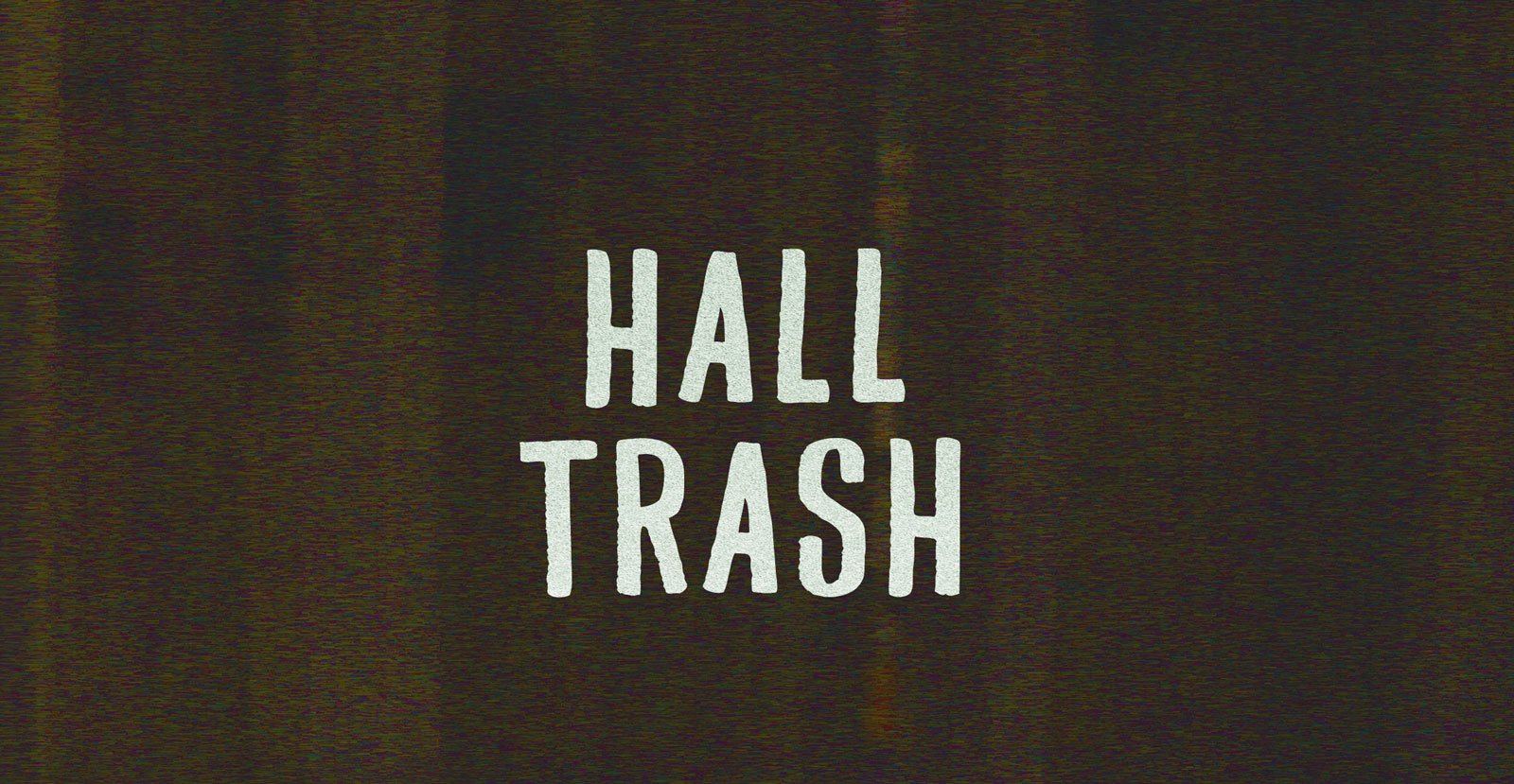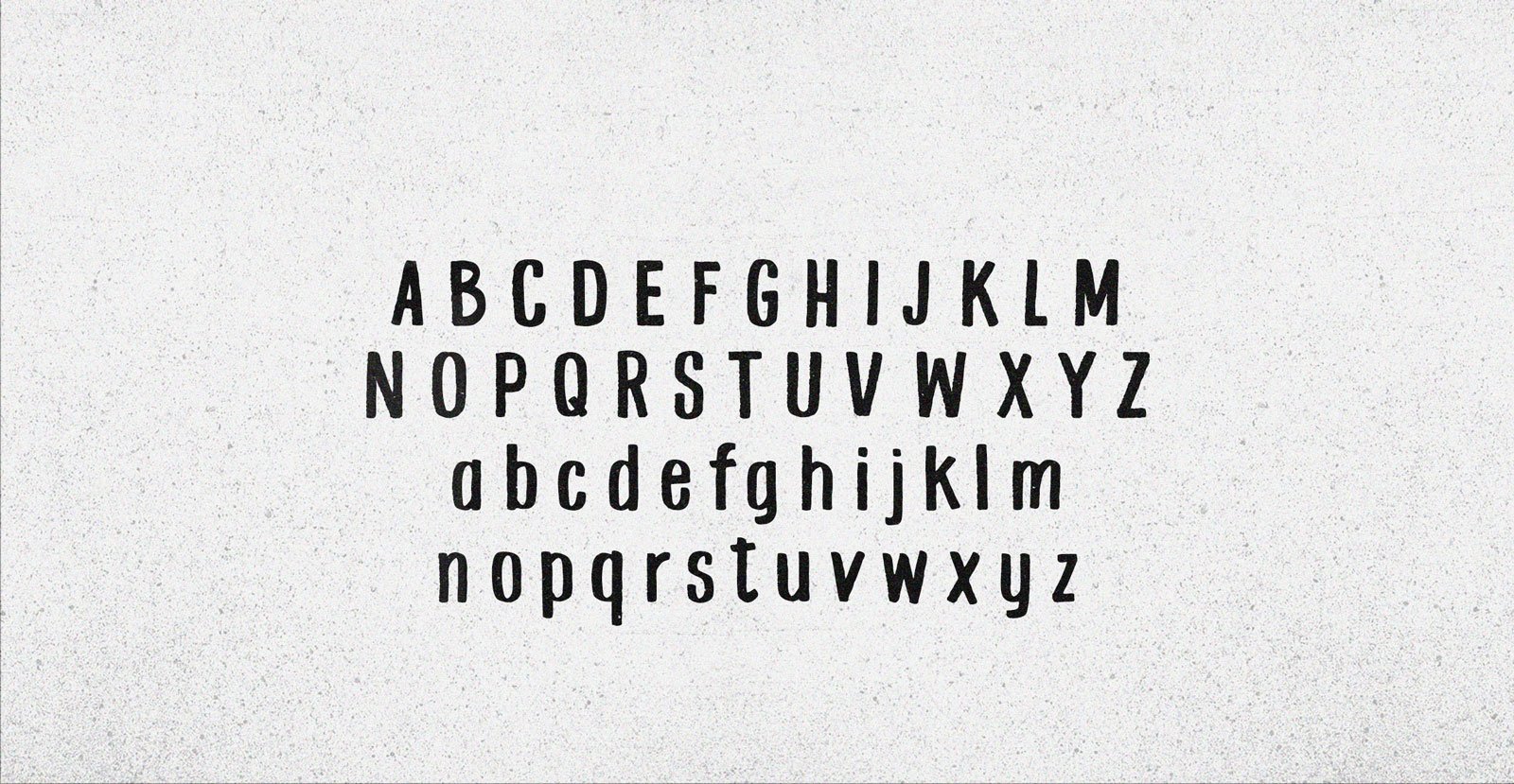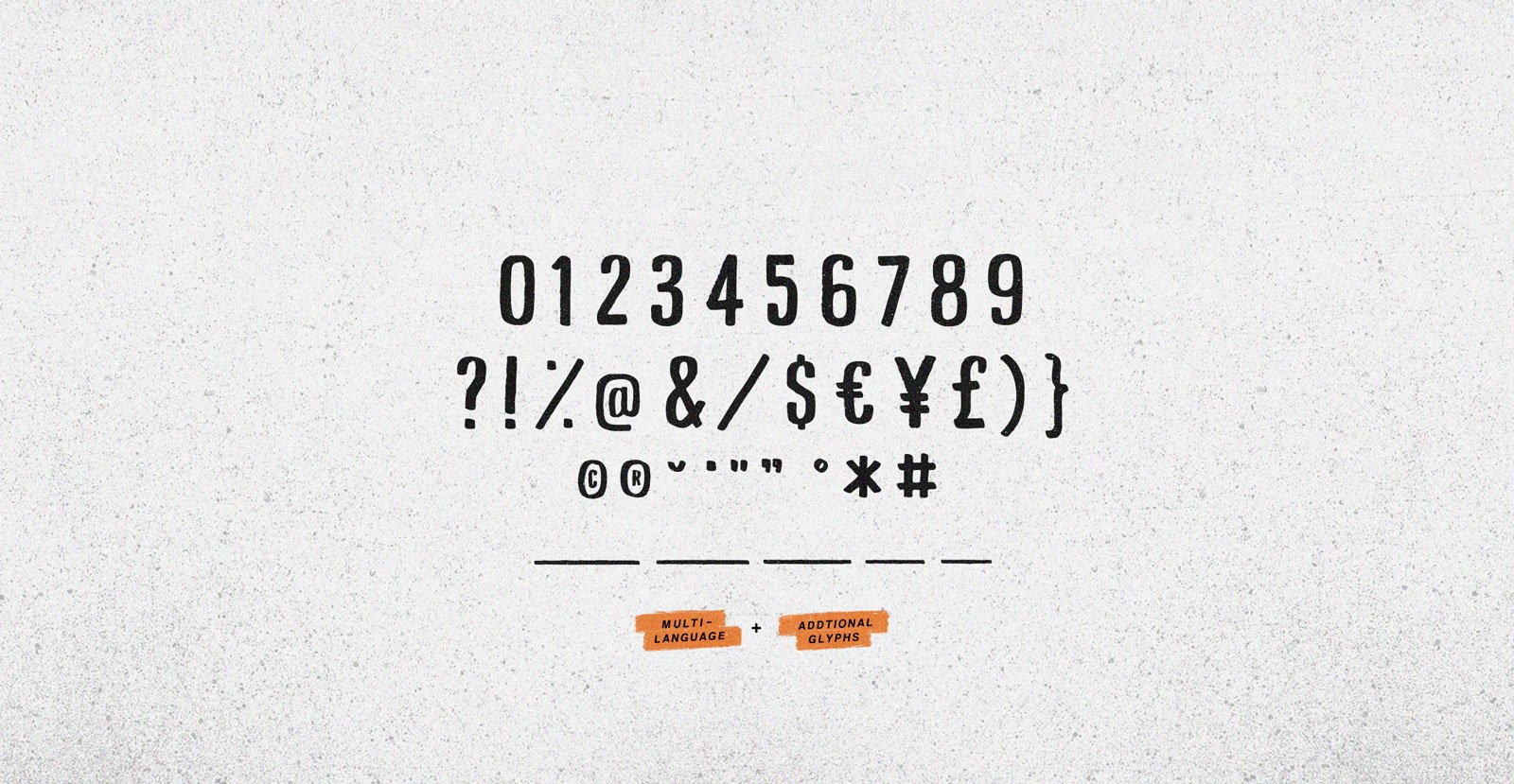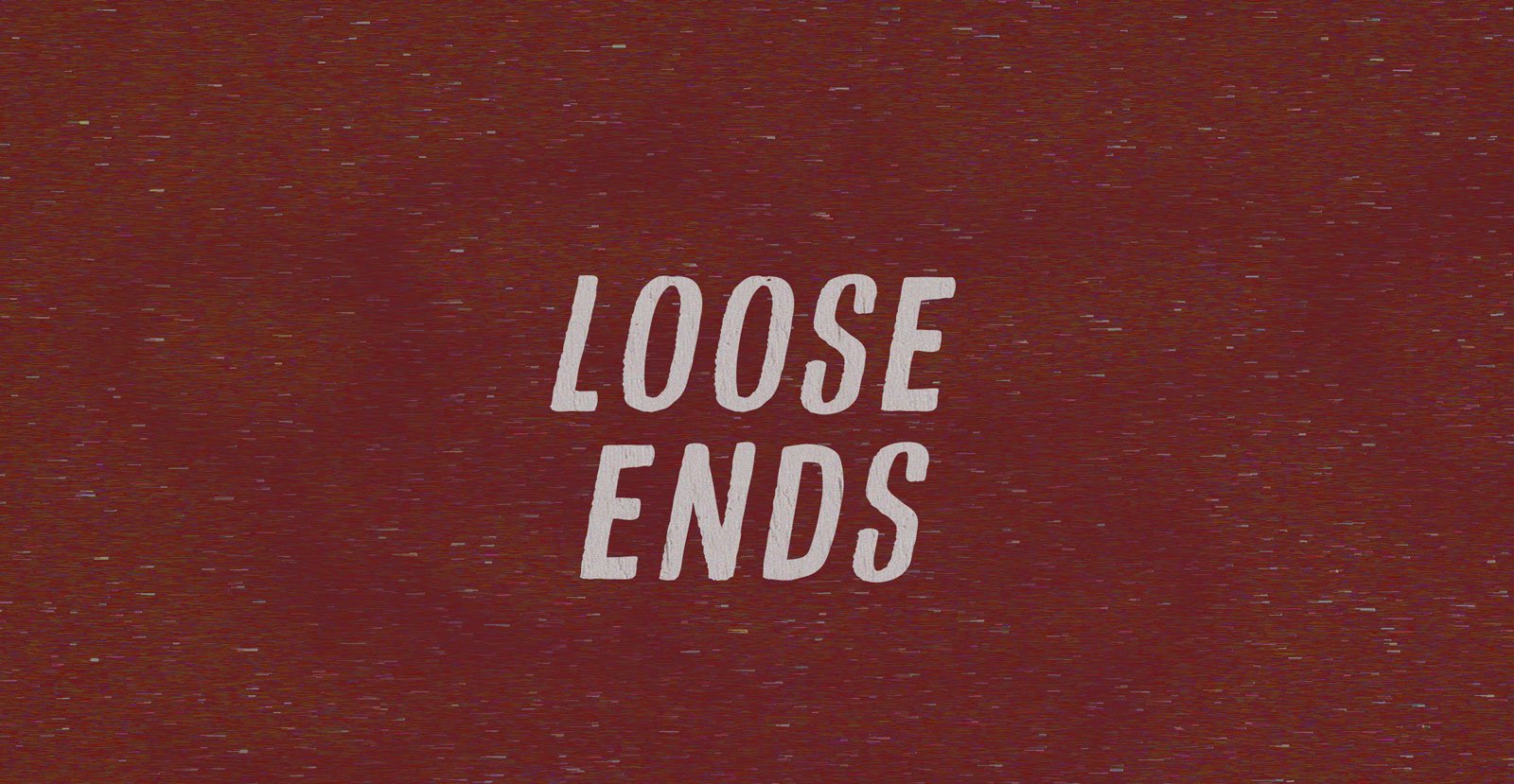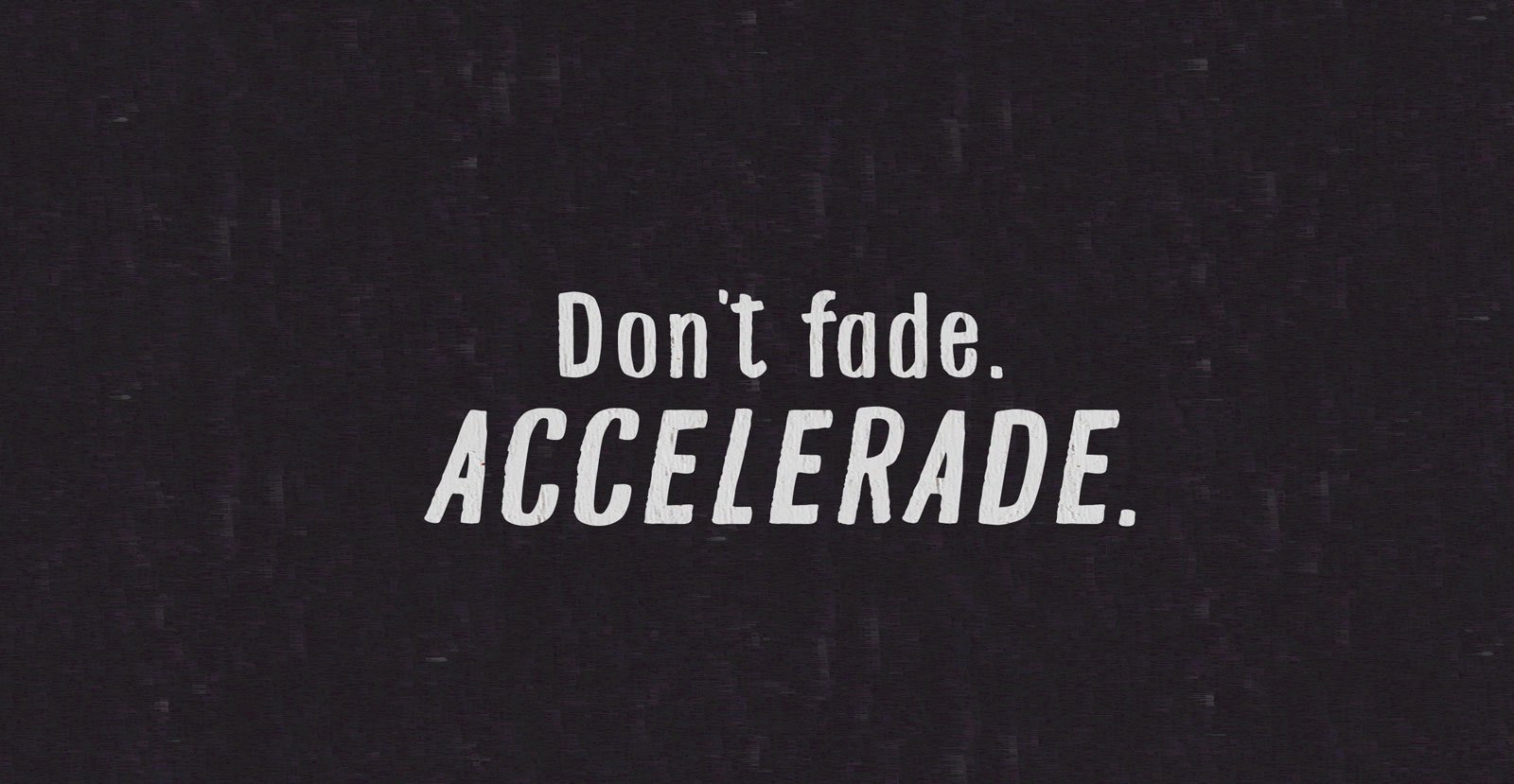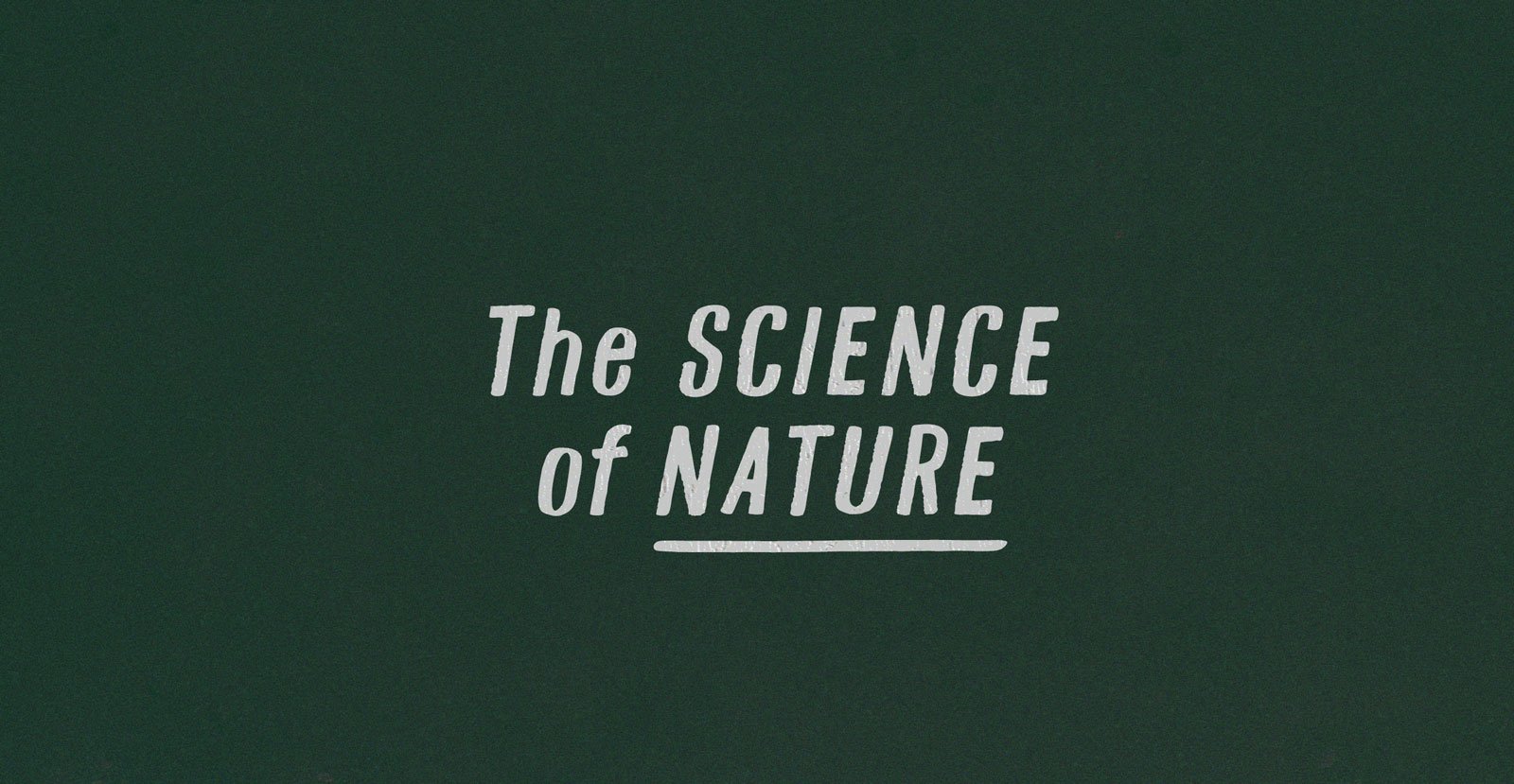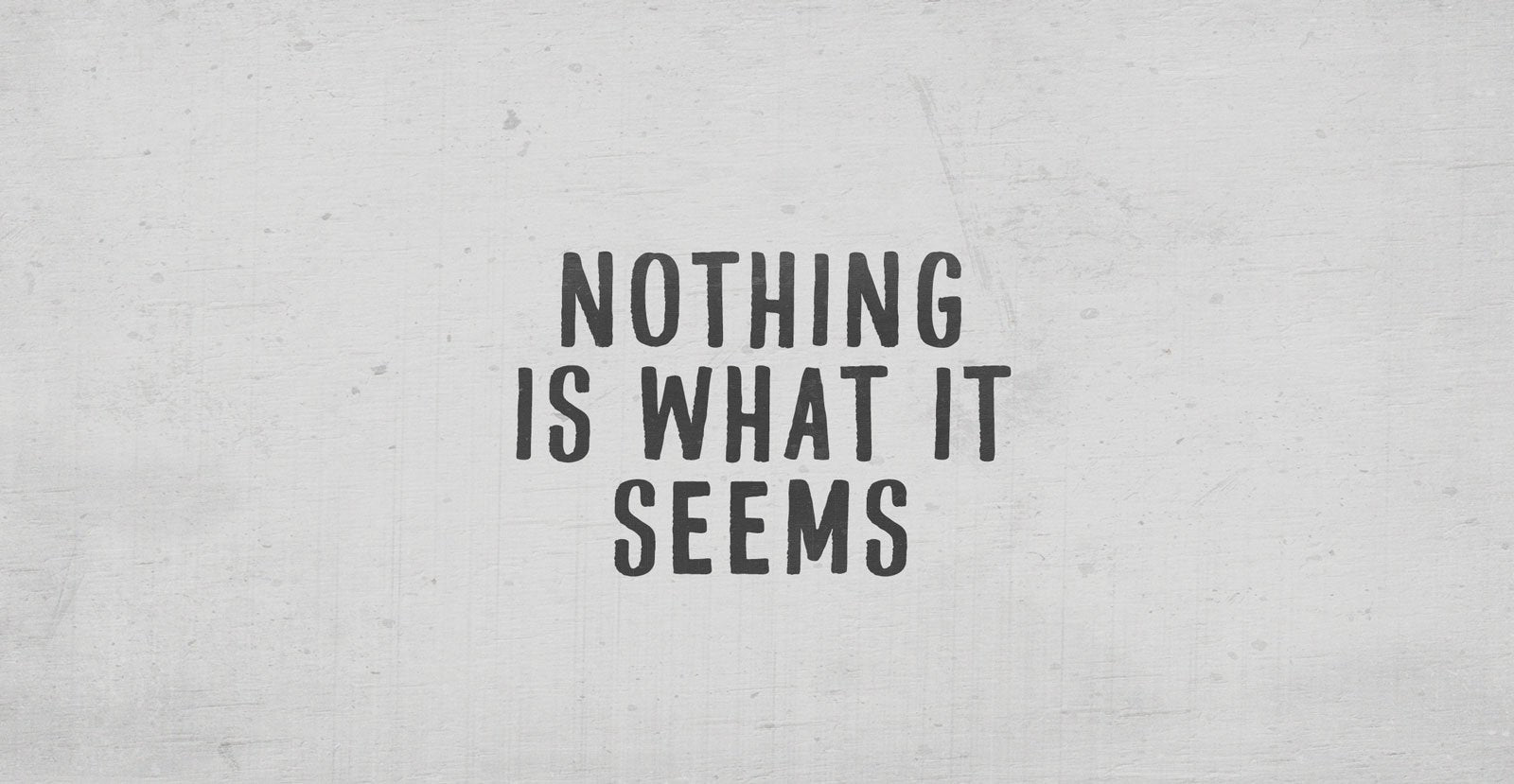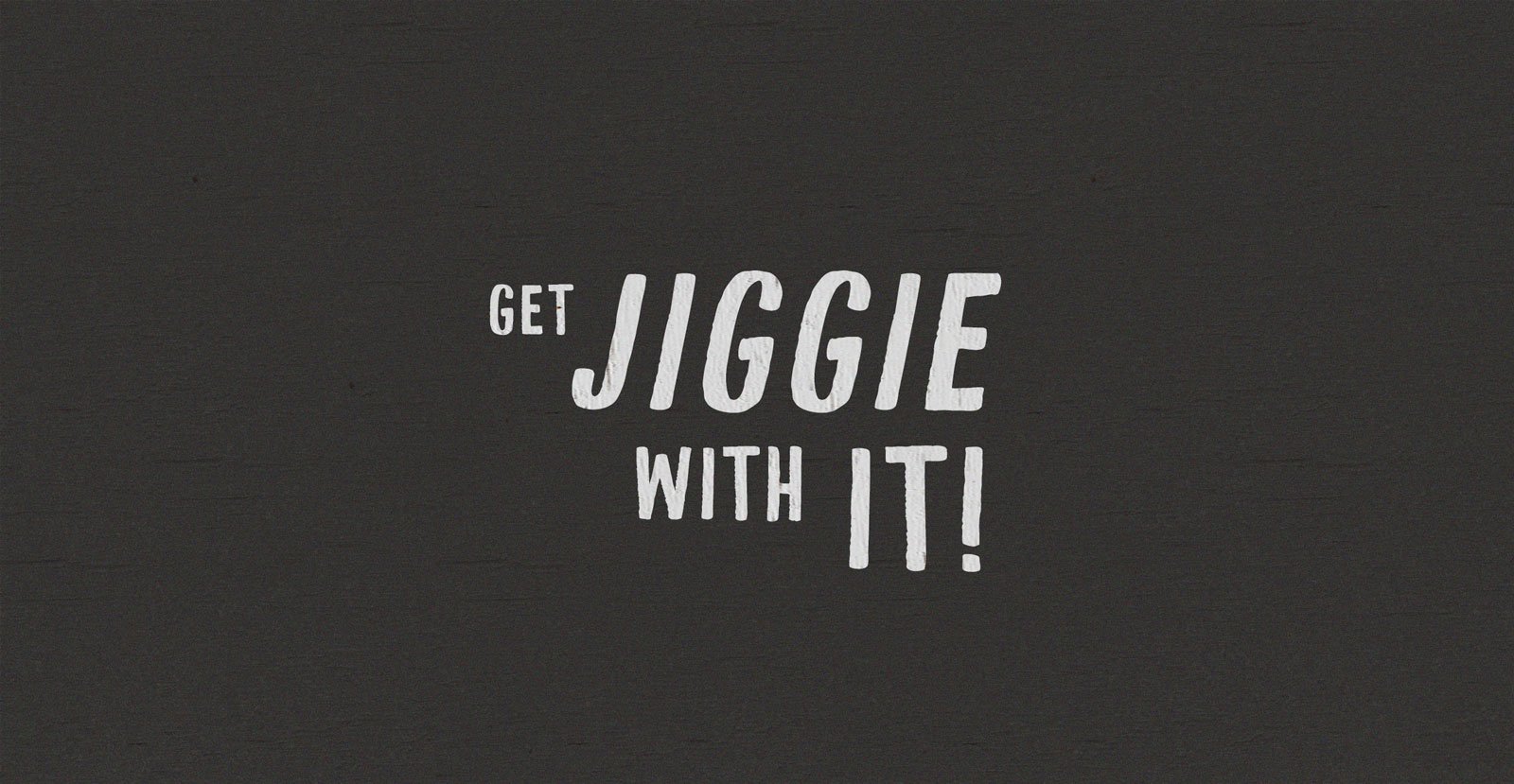
Hall Trash
Called out and hauled out before we went too far—indoors, in its lane, in the way, but so far out of place—at least according to formal directions. Hall Trash in session: Out of place in lessons; participation points precipitate suspensions.